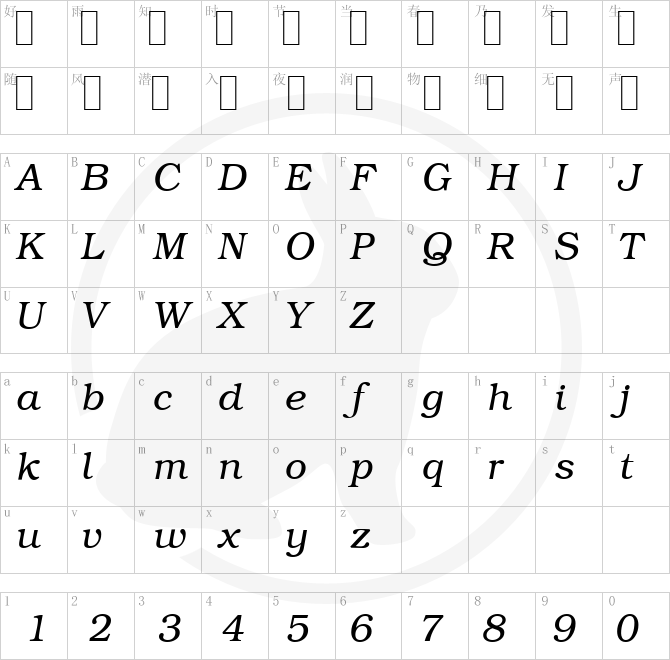
- Font Name:B791-Roman
- Subfamily:SoftMaker Software GmbH B791-Roman-Italic
- Full Name:B791-Roman-Italic
B791-Roman-Italic.ttf is a very beautiful artistic font, B791-Roman-Italic.ttf is widely used in the design and printing of various books and pictures,B791-Roman-Italic.ttf has a strong visual impact,B791-Roman-Italic.ttf is a commonly used font in newspapers, magazines and books, and is used in posters, e-commerce Poster design, store design, logo design, font design and other fields.B791-Roman-Italic.